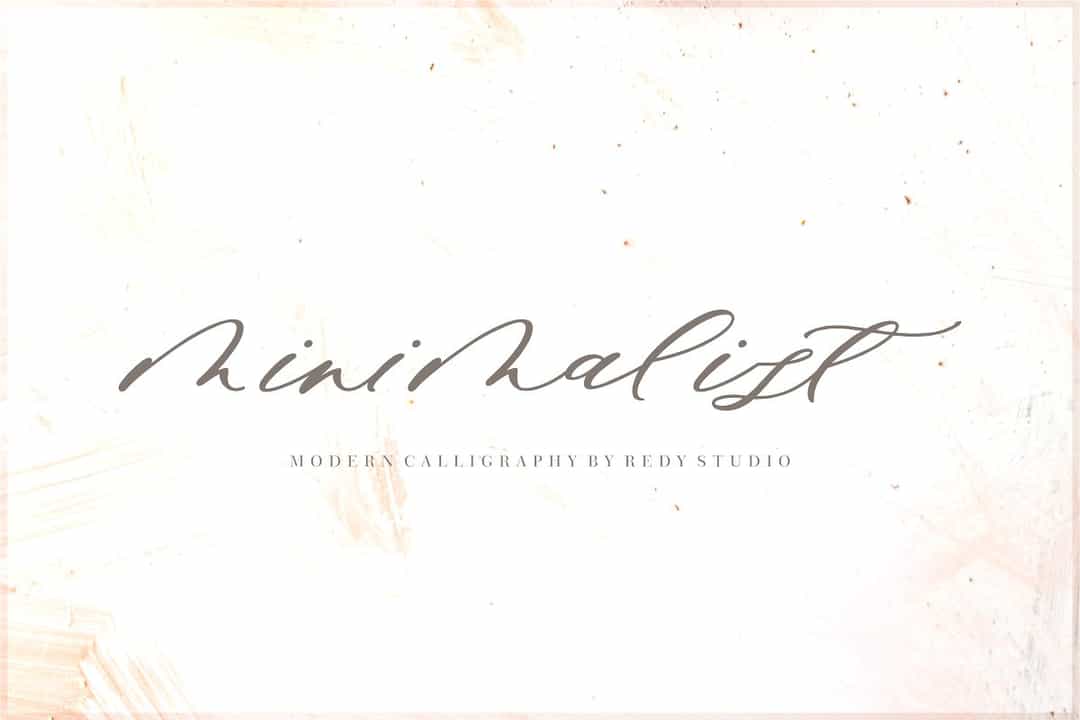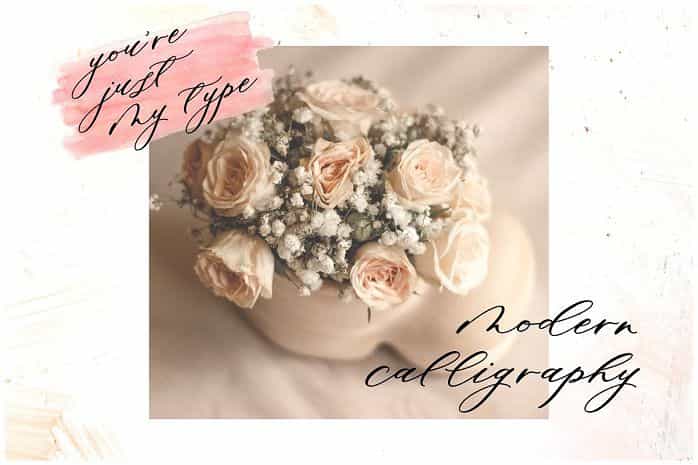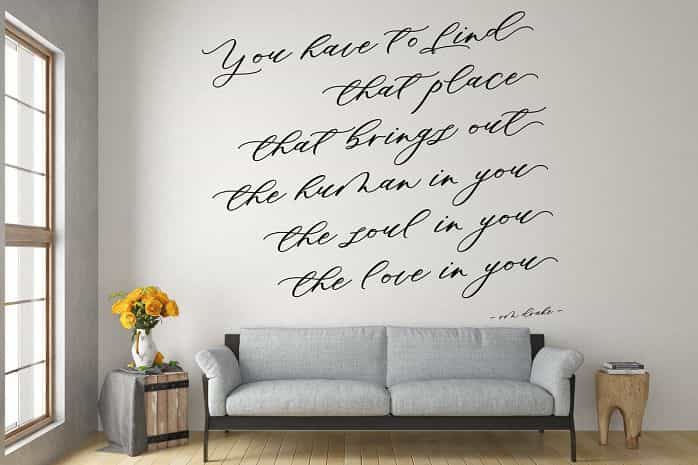
Discover Minimalist Script Font, part of the Calligraphy Handwritten collection—a versatile and unique font perfect for adding a personal touch to your projects. Download it for free and enjoy crafting designs with style, from invitations to social media posts. This font is available exclusively for personal use, giving you the freedom to create without limits. Unlock your creativity with Minimalist Script Font today!
Introducing Minimalist Font. Minimalist Script, as you can tell from its name. The Minimalist is the perfect choice for any design project, be it a wedding invitation, Quote, Branding or social media.